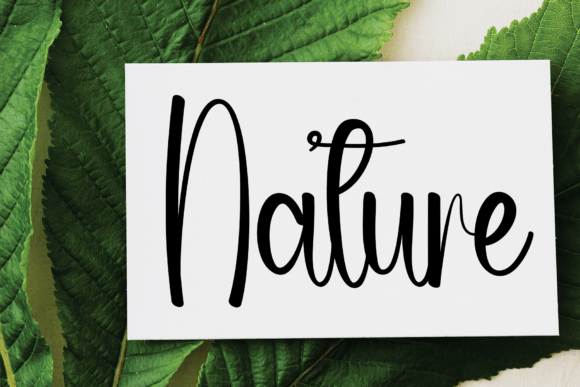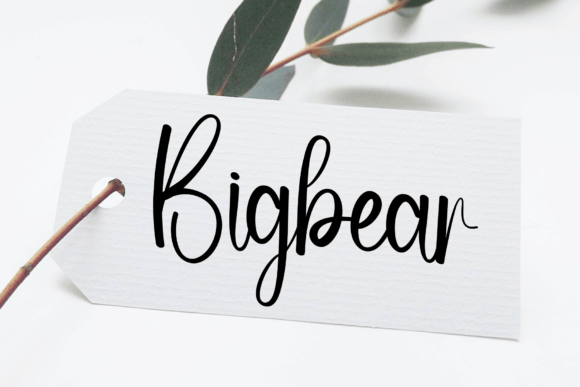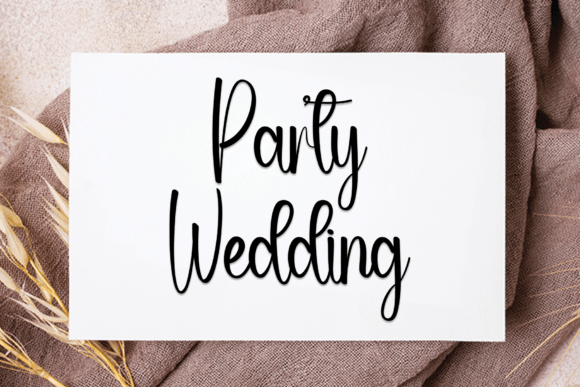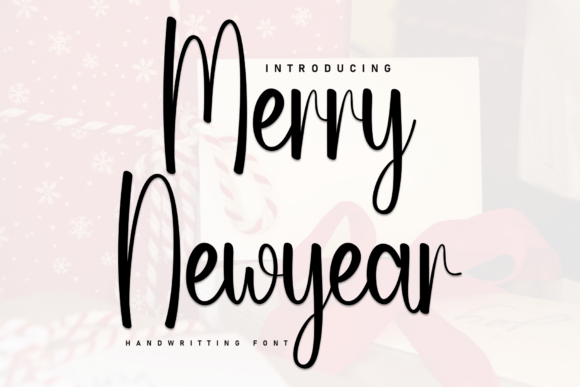
Introduction to Merry Newyear Font
Ring in the festivities with Merry Newyear , a beautifully balanced Handwriting Script that conveys elegance and genuine warmth.
Characterized by its tall, slender letterforms and graceful, flowing connections, this font is perfect for high-impact titles that still feel personal It’s the ultimate choice for designing classy holiday greeting cards , festive New Year’s Eve party invitations, elegant Christmas gift tags, seasonal blog headers, and branded materials for winter events.
Why Choose Merry Newyear Font?